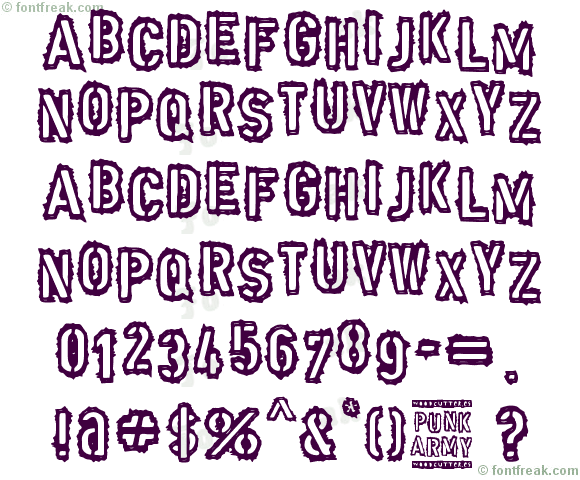
Punk Army
Punk Army, designed by woodcutter Manero, is a striking display typeface that perfectly embodies the rebellious spirit of punk culture. With its bold, rugged aesthetic, this font captures attention and conveys a sense of attitude and individuality. The visual characteristics of Punk Army include a rough, uneven stroke weight that adds texture and depth, creating a dynamic look that is both edgy and playful. The letterforms are spaced generously, allowing for easy readability while maintaining a unique flair. The decorative elements, such as jagged edges and irregular shapes, contribute to its distinctive punk vibe.
This typeface is ideal for a variety of creative projects. It shines in applications like music event posters, where it can evoke the energy of live performances. Additionally, Punk Army is perfect for merchandise design, such as band T-shirts or stickers, where a bold statement is essential. It can also be effectively used in branding for niche cafes or bars that want to convey a laid-back, alternative atmosphere. Content creators looking to add a punchy touch to their social media graphics or website headers will find this font particularly appealing.
The target audience for Punk Army includes graphic designers, small business owners, and content creators who are seeking to make a memorable impression. Its unique style sets it apart from more conventional typefaces, making it an excellent choice for projects that demand a distinct personality.